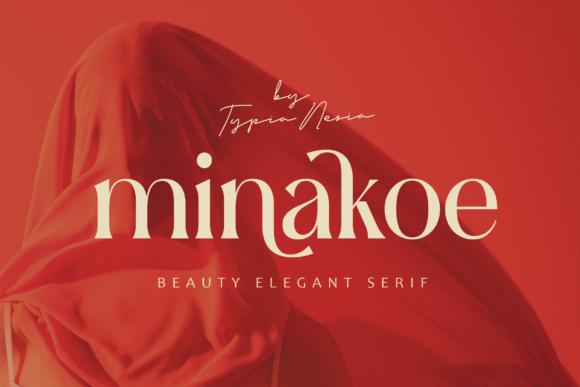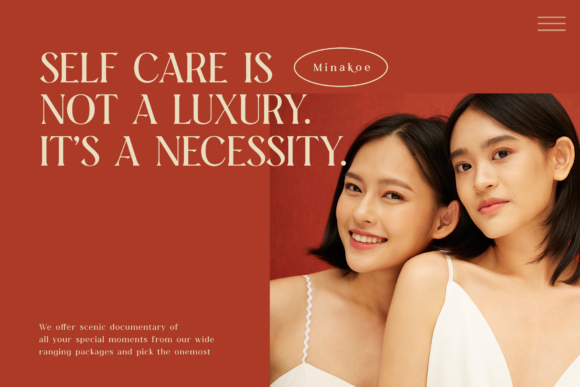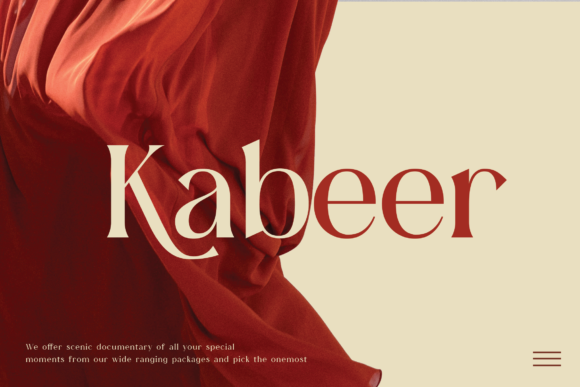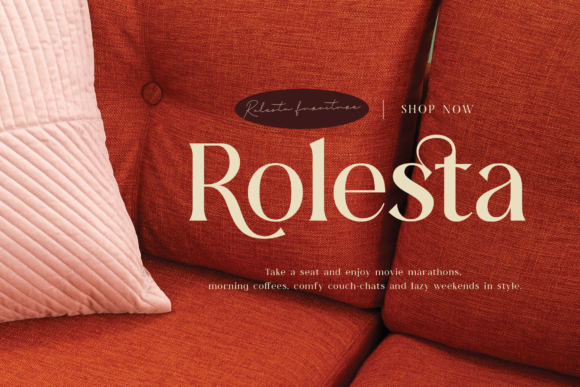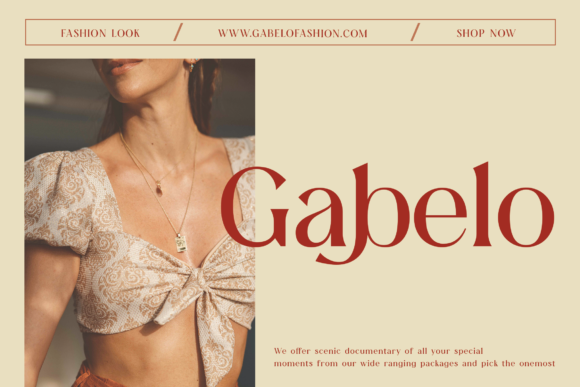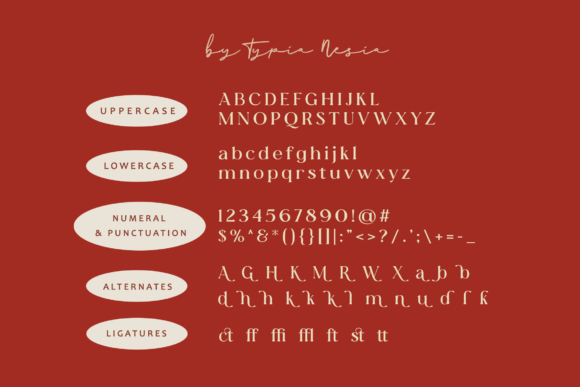
Minakoe Font
Minakoe – Beauty Elegant Aesthetic Serif – Modern Expressive Feminine Logo Branding Font
Minakoe comes with some alternates and ligatures, so you can combine them to make a perfect typography design. It is perfect for your upcoming projects. Such as luxury logo and branding, classy editorial design, woman magazine, cosmetic brand, fashion promotional, art gallery branding, museum, history of architecture, boutique branding, stationery design, blog design, modern advertising design, card invitation, art quote, home decor, book/cover title, special events and any more.